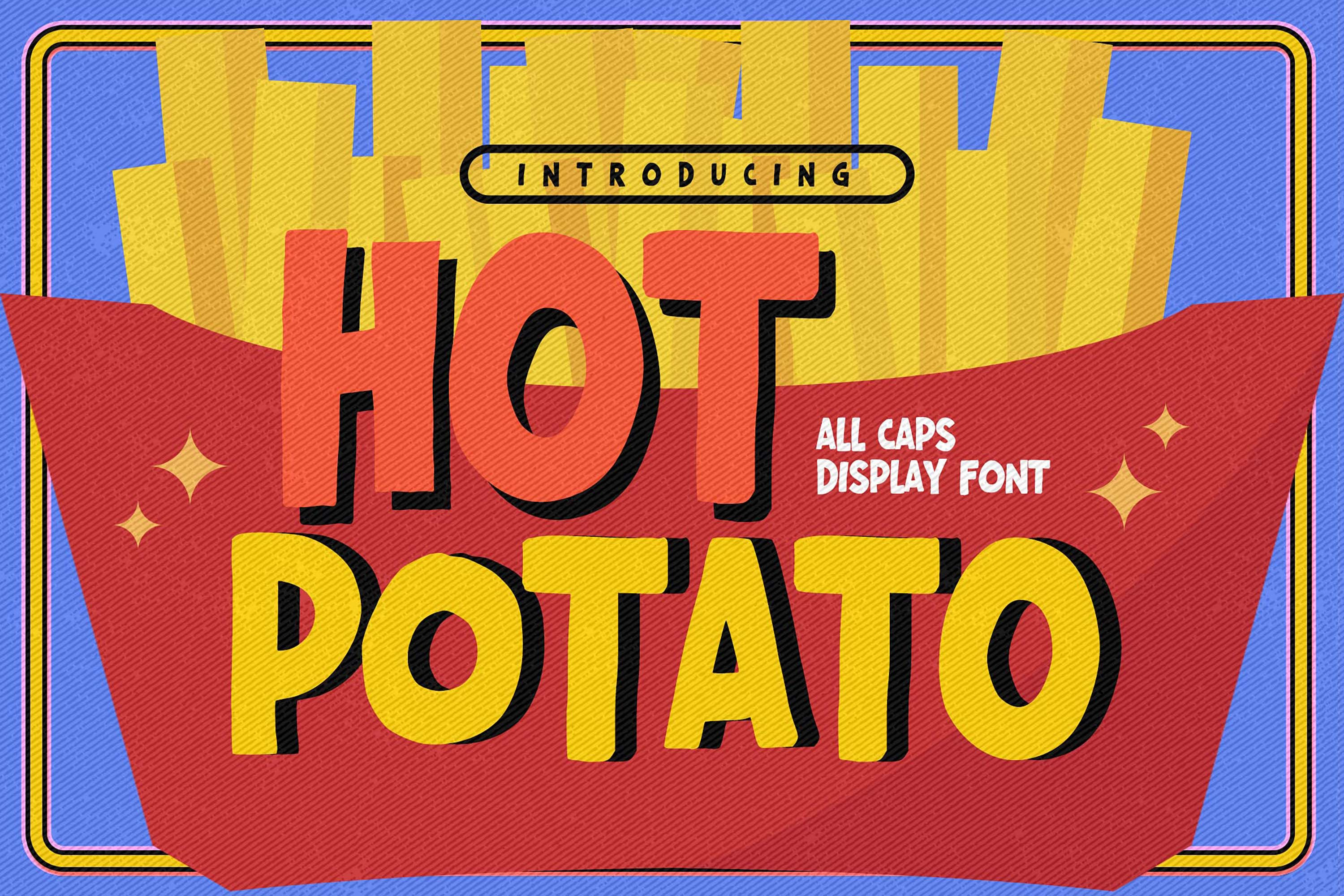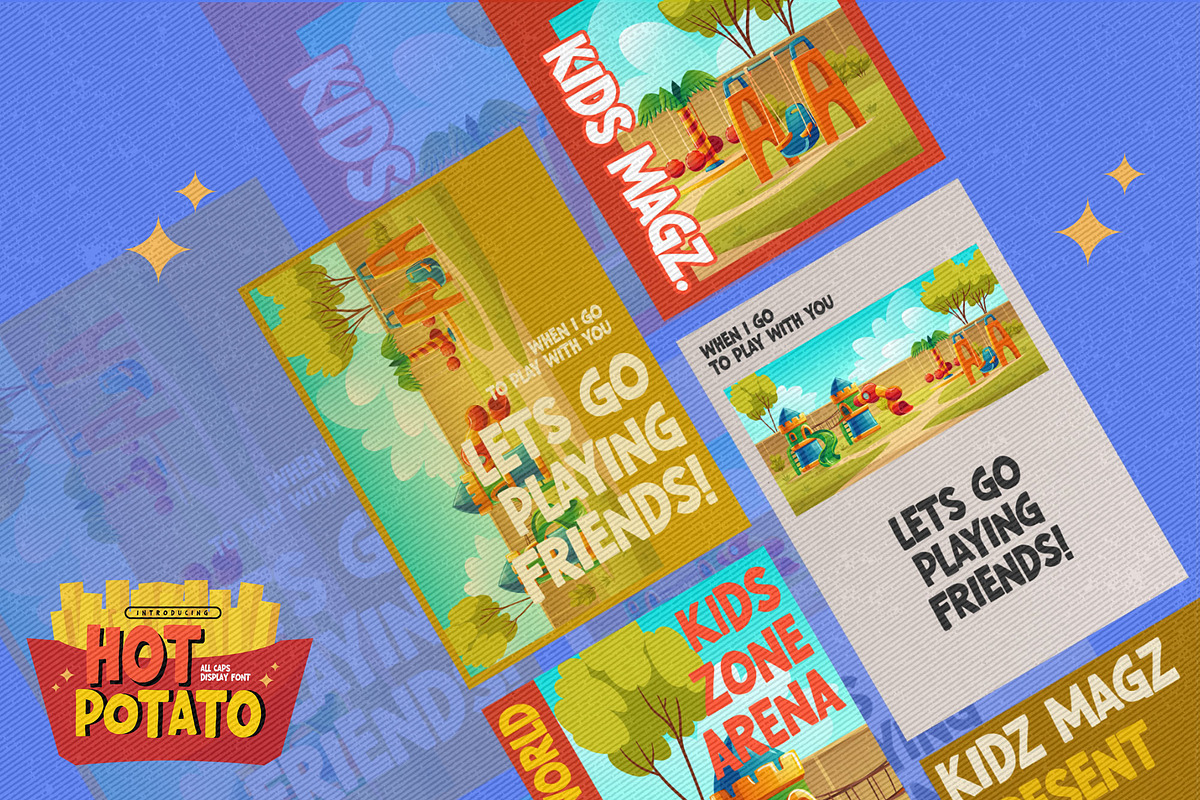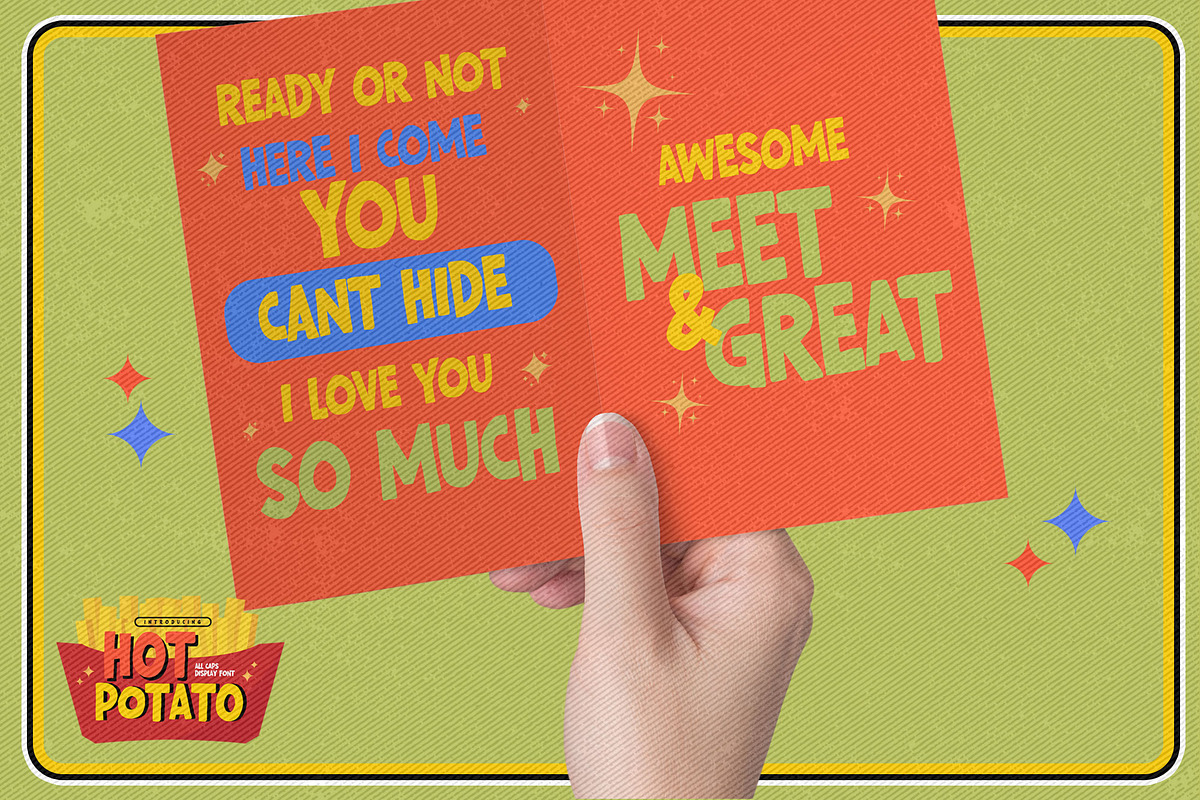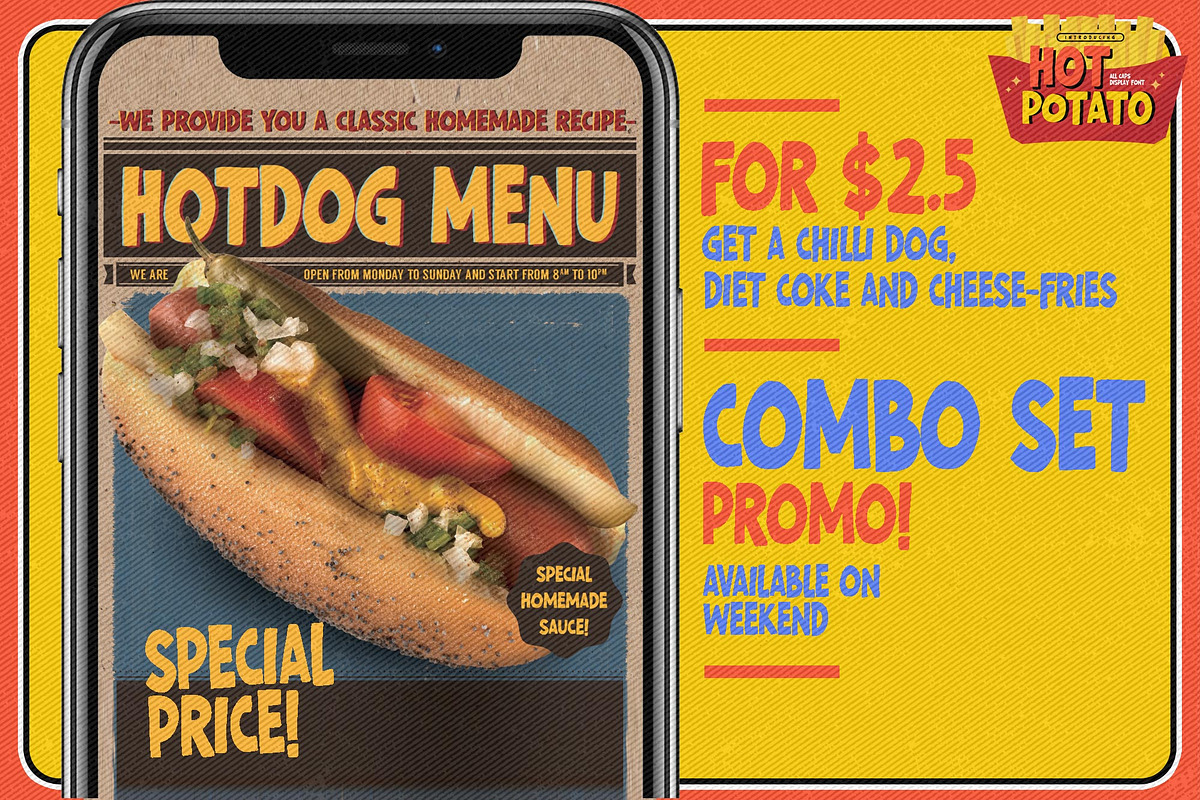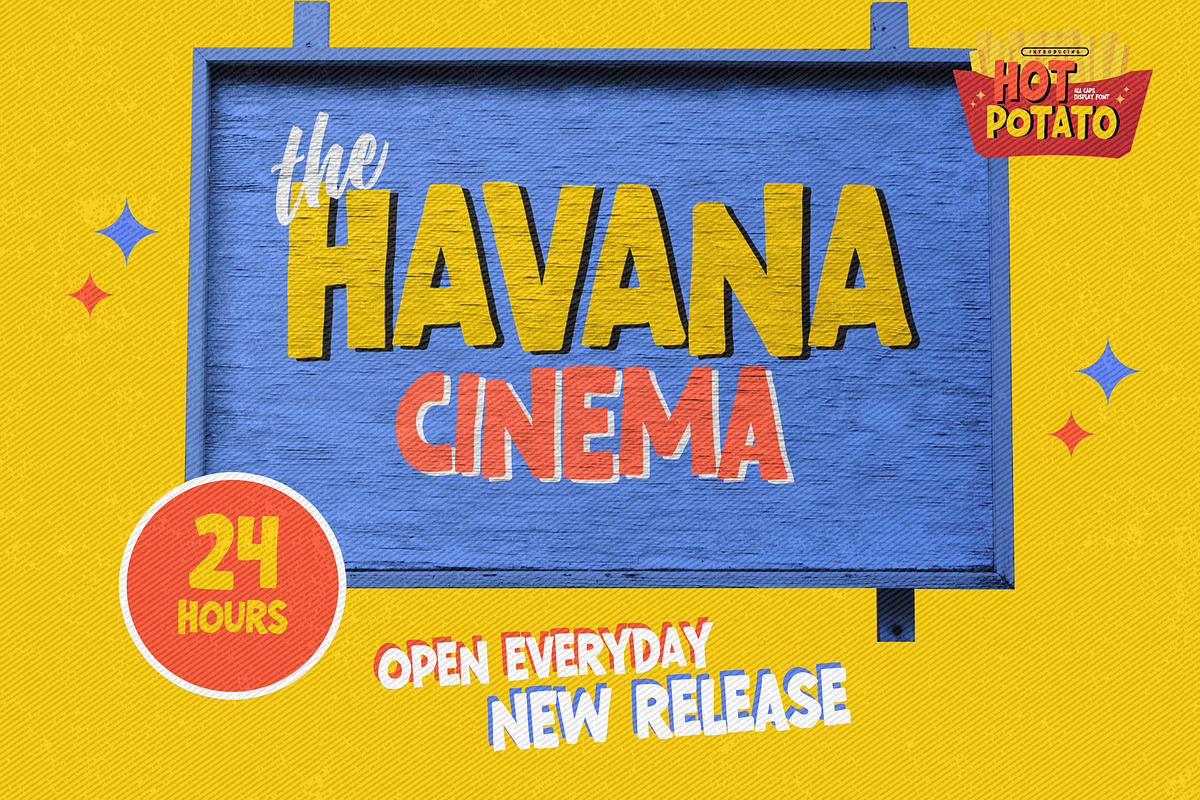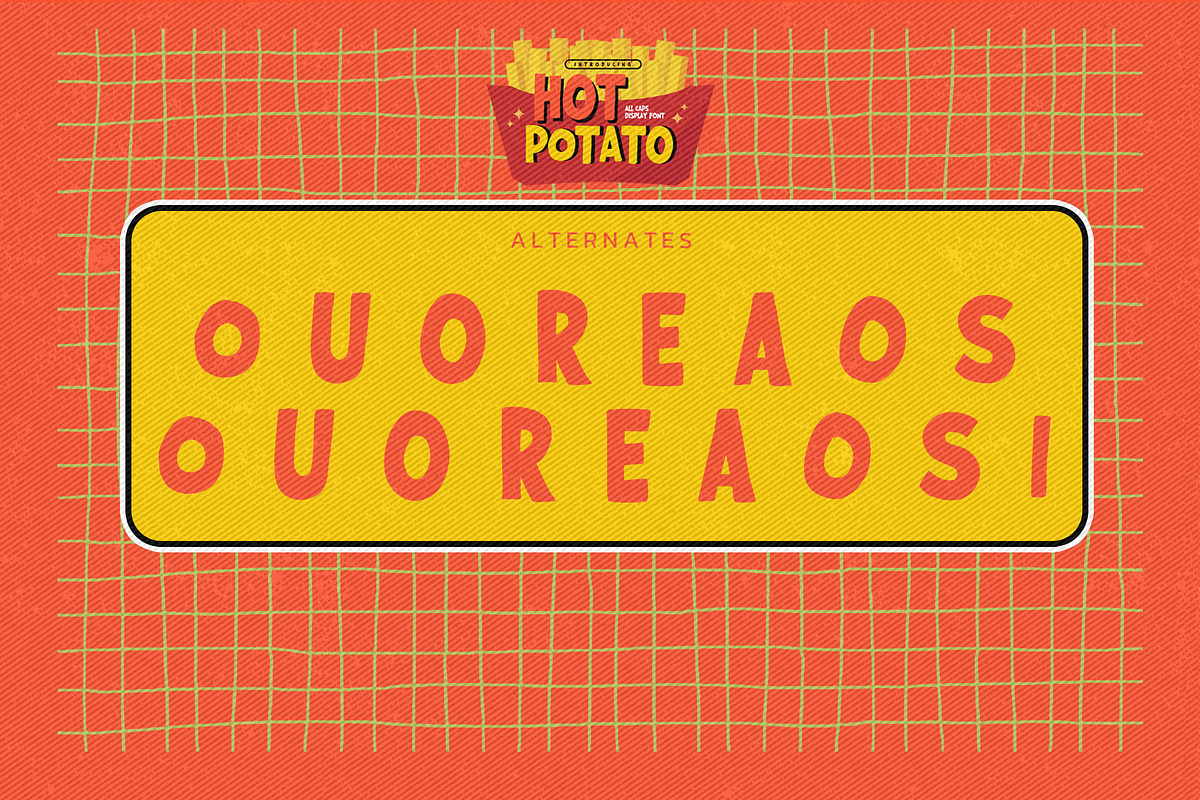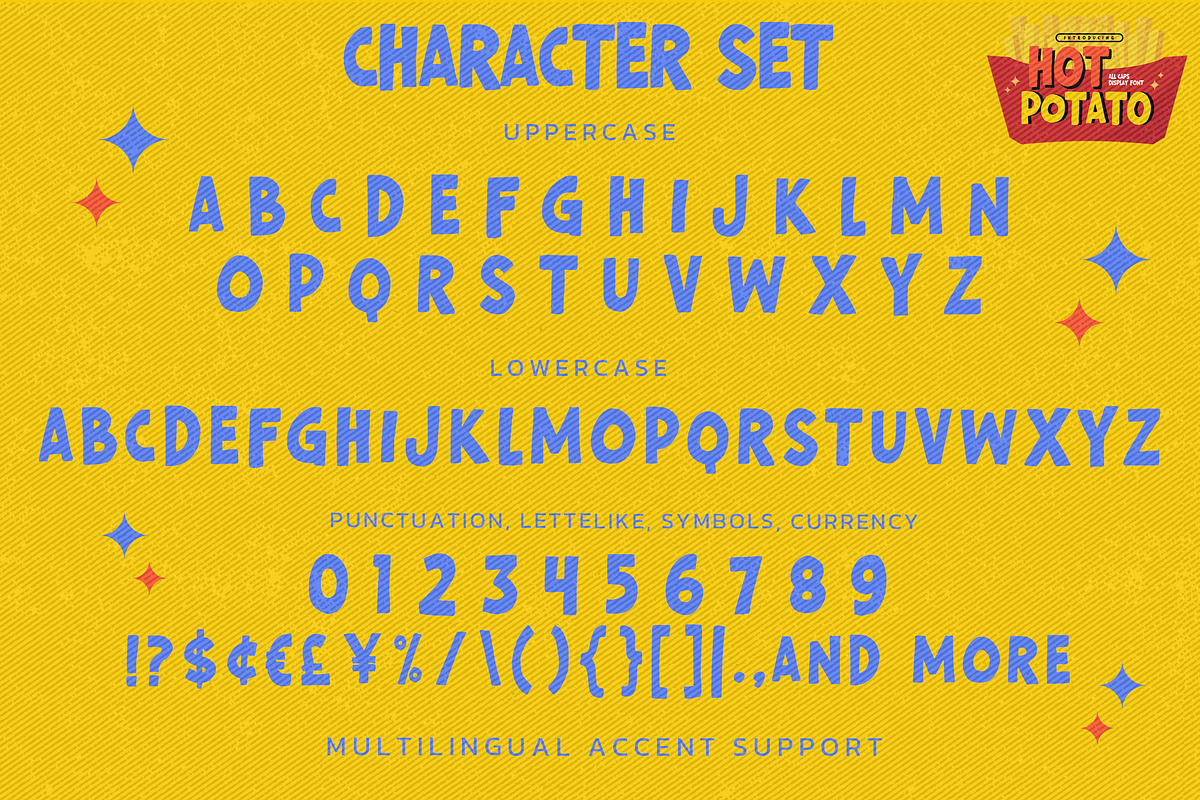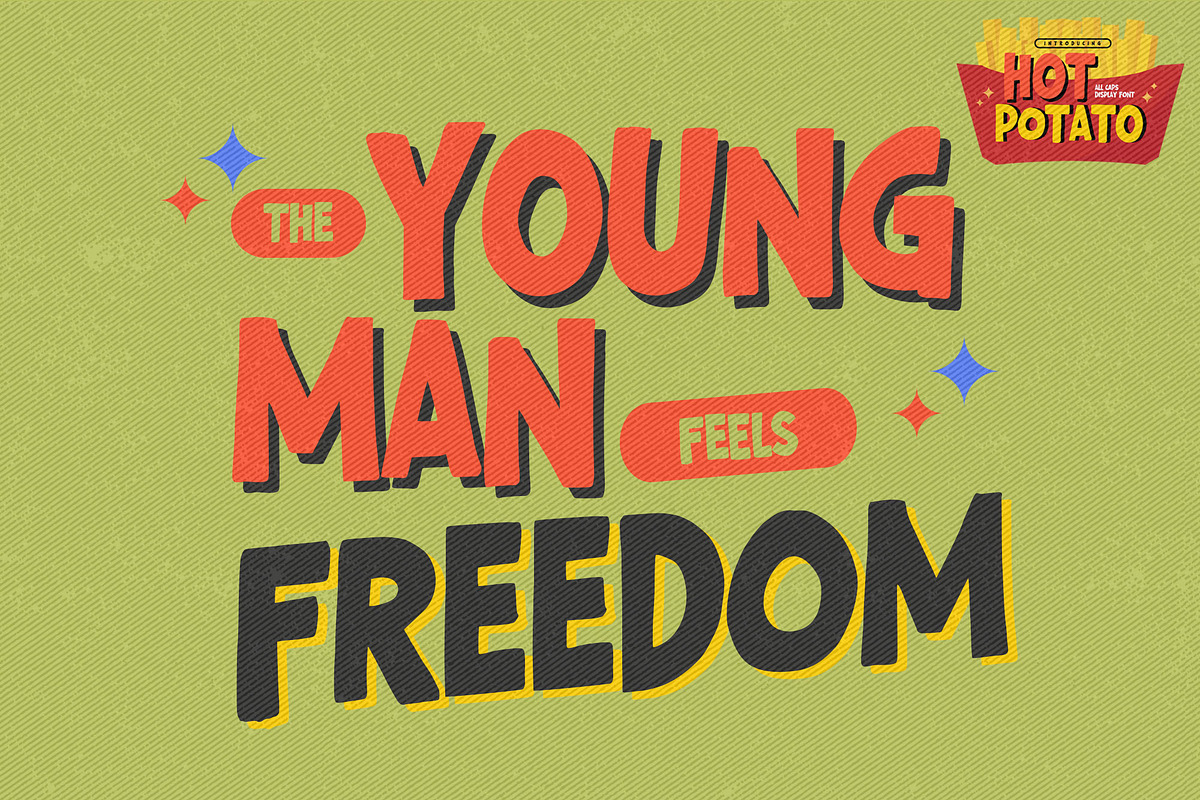
Hot Potato - All Caps Display Font
Here comes a New font, Introducing Hot Potato It's All Caps Display Font is a Textured Natural Style and Authentic classy style, this font is great for your creative projects such as watermark on photography, and perfect for logos & branding, invitation,advertisements,product designs, stationery, wedding designs,label ,product packaging, special events or anything that need handwritting taste.
Hot Potato a natural Hand Drawn feel. This handmade font will make your design has a beautiful natural touch for each details. It is perfect for any design project as Invitation,logo, book cover, craft or any design purposes,photos, photography overlays, signs, window art, scrapbooking, tags and so much more!
It is perfect for any design project as Invitation,logo, book cover, craft or any design purposes. This font is PUA encoded which means you can access all of Alternate glyphs.
- Alternates glyphs